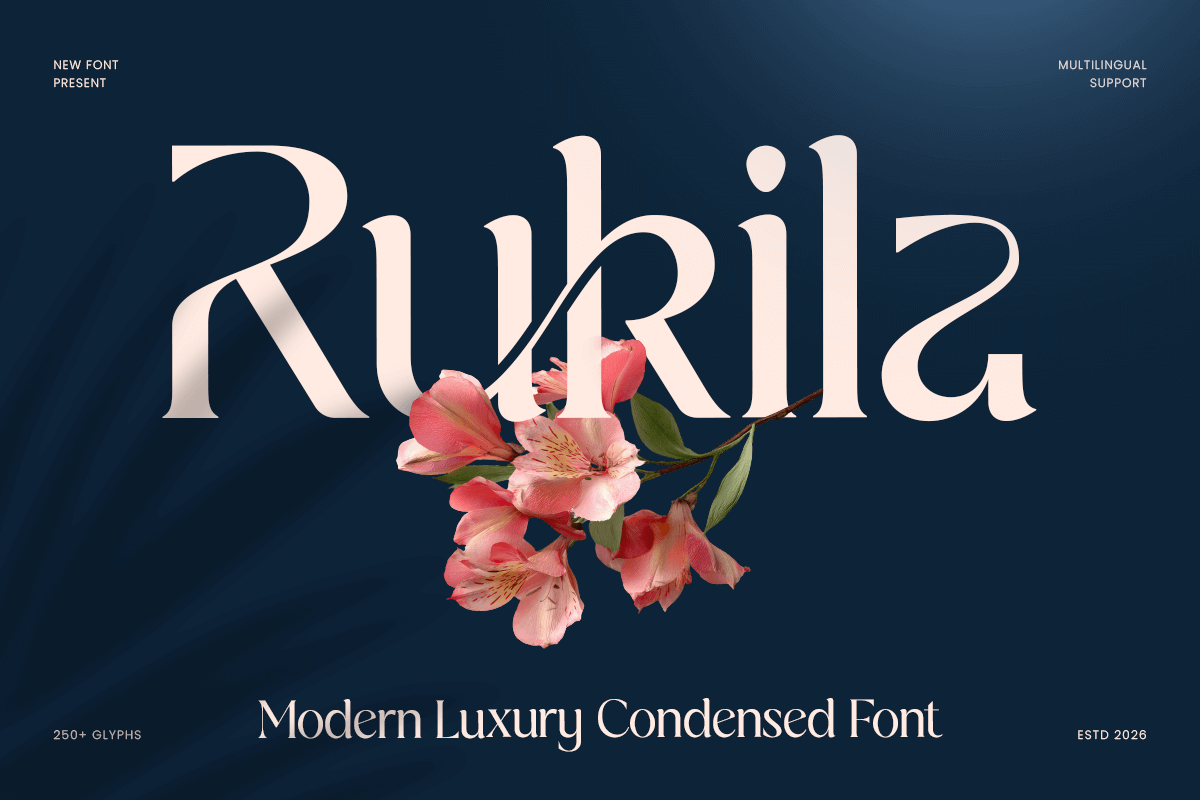
Best Luxury Serif Fonts for Elegant Branding in 2026
Discover the best luxury serif fonts for logos, packaging, beauty branding, and editorials. Explore elegant serif font ideas for premium brand identities in 2026.
Best Luxury Serif Fonts for Elegant Branding in 2026
Luxury serif fonts are serif typefaces designed to create a premium, elegant, and timeless impression. They are widely used for luxury logos, beauty packaging, fashion editorials, website headlines, and invitation design because they combine refined detail with a polished, professional structure. The best luxury serif fonts help brands look more distinctive, sophisticated, and visually elevated.
For brands that want to appear graceful, exclusive, and memorable, serif fonts remain one of the strongest typographic choices. Their contrast, rhythm, and decorative precision can instantly shape how a brand feels. Some luxury serif fonts lean classic and regal, while others feel modern, minimal, and editorial. The right choice depends on whether your brand wants to feel more timeless, fashion-forward, romantic, or bold.
In this article, we highlight some of the best luxury serif fonts for branding and explain how to choose the right style for logos, packaging, and premium visual identities.
What Makes a Serif Font Look Luxurious?
A serif font usually feels luxurious when it has refined proportions, elegant stroke contrast, and a strong visual presence. The most effective luxury serif fonts often balance beauty with clarity, so they look stylish without becoming difficult to read.
Several qualities often make a serif font feel more premium:
• High contrast between thick and thin strokes
• Graceful curves and refined terminals
• Clean spacing and balanced proportions
• A polished editorial or fashion-inspired look
• Strong readability in logos and headlines
Luxury serif fonts are especially popular in industries where image and first impressions matter. Beauty brands, fashion labels, perfume packaging, jewelry businesses, boutique hotels, and premium product lines often rely on serif typography to communicate trust, prestige, and elevated taste.
Why Luxury Serif Fonts Work So Well for Branding
Luxury branding depends heavily on perception. Before people read your brand story or explore your products, they notice the visual tone. Typography plays a major role in that first impression.
A luxury serif font can help a brand feel:
• More elegant
• More trustworthy
• More premium
• More timeless
• More memorable
When paired with minimal layouts, generous spacing, and refined color palettes, serif fonts can transform even simple branding into something that feels high-end. That is why luxury serif fonts are often used in logo design, packaging systems, editorial campaigns, and website hero sections.
Best Luxury Serif Fonts for Branding
Rukila – Modern Classy Condensed Font
Rukila is a modern classy condensed font designed for elegant branding with a tall, space-efficient presence. Its narrow proportions make it especially useful for logo design, product packaging, and premium wordmarks where space is limited but visual impact still matters.
Rukila feels polished and contemporary, making it a strong choice for fashion brands, boutique labels, and modern luxury identities. It works particularly well when you want a logo to feel sleek, stylish, and editorial without looking overly decorative.
Grade – Modern Luxury Stencil Logo Font
Grade offers a more unique take on luxury typography by combining elegant serif structure with stencil-inspired cuts. This gives the font a sharper, more exclusive character that feels bold and fashion-forward.
For brands that want to stand out from more traditional serif choices, Grade creates a strong visual identity. It is suitable for statement logos, premium campaigns, fashion branding, and bold packaging concepts.
Royalist – Modern Display Serif Font
Royalist is a luxury editorial serif font with a polished, magazine-inspired personality. It feels graceful, sophisticated, and beautifully elevated, making it ideal for visual identities that need a strong fashion or editorial tone.
This font works well for beauty branding, perfume packaging, editorial layouts, invitation design, and premium social media visuals. If your brand aims for a refined high-fashion impression, Royalist is one of the strongest choices in this list.
Erazer – Luxury High Contrast Serif Font
Erazer is a high-contrast serif font built to deliver drama, elegance, and visual prestige. Its thick-thin contrast gives it a glamorous tone that feels right at home in luxury packaging and bold editorial applications.
The best luxury serif fonts help brands look more elegant, polished, and unforgettable. Whether your visual identity leans timeless, editorial, modern, or dramatic, the right serif font can elevate the entire brand experience. Fonts like Rukila, Grade, Royalist, Erazer, and Vertex each bring a different interpretation of luxury. Some feel sleek and minimal, others bold and glamorous. The most important thing is choosing a serif font that matches your brand personality and performs well across every touchpoint, from logos and websites to packaging and campaign visuals.